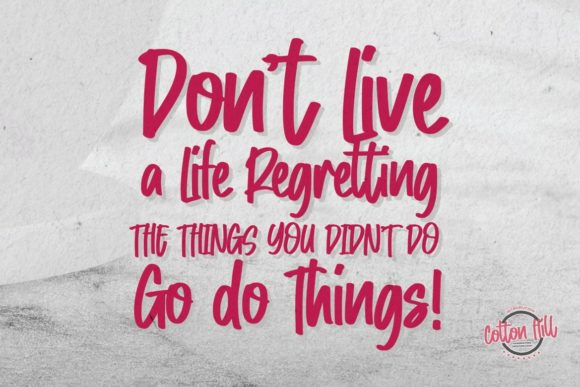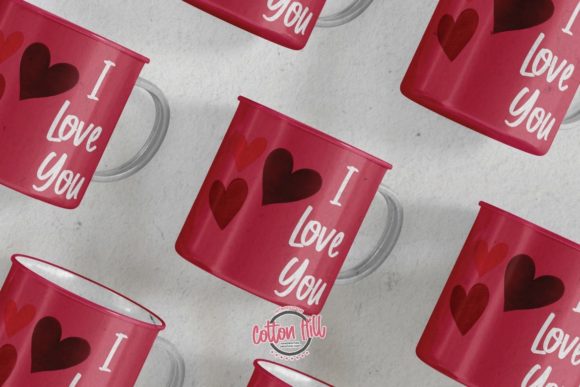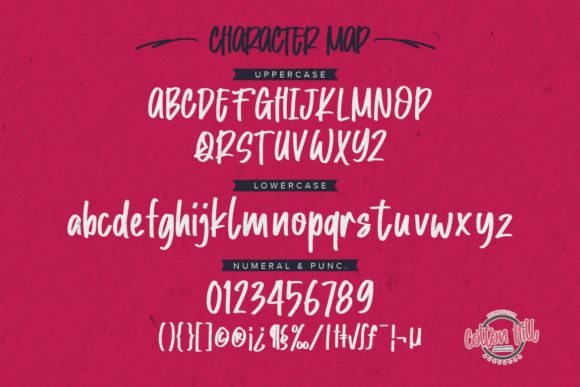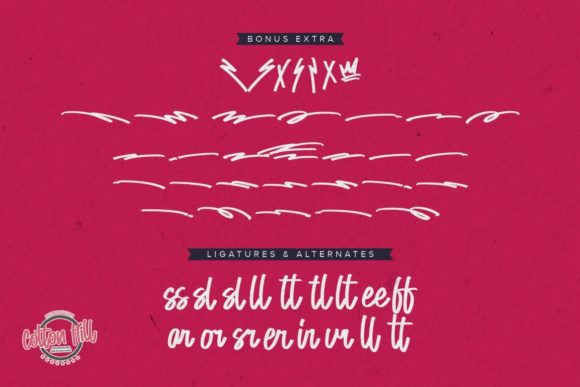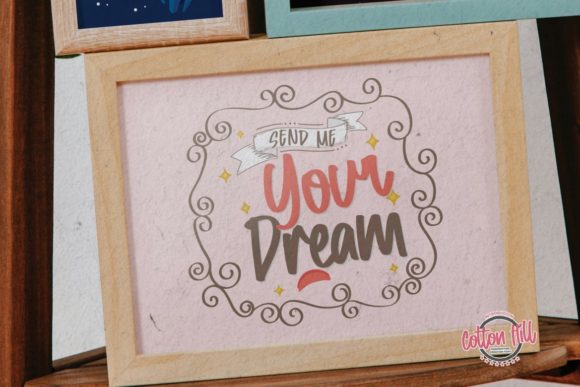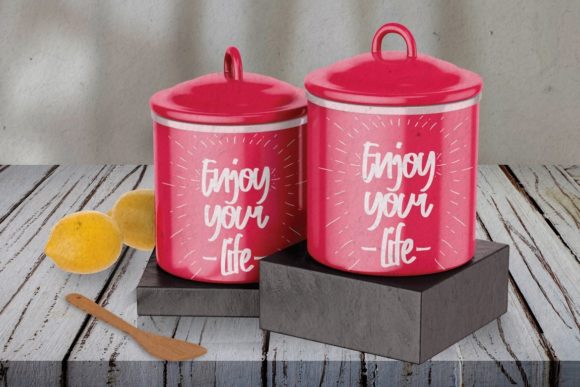
Discover the Artistic Charm of Cotton Hill Font
As I sat at my desk, staring at a blank page, I felt the familiar itch to create something beautiful. I reached for my favorite font, and with a few strokes of my keyboard, the words began to flow. The result was nothing short of magic – a handwritten masterpiece that captured the essence of my thoughts. But what makes a font truly special? For designers, it’s all about the right tool to bring their vision to life. That’s where Cotton Hill Font comes in – a stunning, paint-brushed handwritten font that’s sure to leave a lasting impression.
Cotton Hill Font is more than just a font – it’s an experience. With its unique feel and stunning impact, it’s the perfect addition to any design project. And with PUA encoding, you can access all of the glyphs and swashes with ease, taking your designs to the next level. Whether you’re a seasoned pro or just starting out, Cotton Hill Font is an invaluable tool that will help you create something truly special.
- Font Family: A unique, hand-drawn font with a casual and friendly feel.
- Size: The font comes in 6 weights, ranging from Light to Black, allowing for flexibility in design applications.
- Unique Characteristics: Distinctive hand-drawn feel, with subtle imperfections and variations in letterforms, adding to the font’s charm and personality.
Cotton Hill Font Review
Overall, I think the Cotton Hill Font is a solid choice for designers who need a friendly, approachable typeface. Here are some of its strengths:
- ✨ It’s highly legible, making it perfect for body text and longer passages of content.
- ✨ The font has a great balance between modern and classic elements, giving it a timeless feel.
- ✨ It’s suitable for a wide range of projects, from editorial and publishing to branding and advertising.
- ⚠️ The font may not be the best choice for headlines or titles, as it’s not bold or dramatic enough to make a strong impression.
- ⚠️ It may not be suitable for very small or very large text sizes, as it can become blurry or difficult to read.
Overall, I think the Cotton Hill Font is a great addition to any designer’s toolkit. It’s versatile, easy to use, and highly effective for a wide range of projects. Just be aware of its limitations, and use it judiciously to get the best results.
For the best results, use Cotton Hill Font in combination with other elegant and vintage fonts to create a unique design.
Use Cotton Hill Font to add a touch of vintage charm to your designs.
Use Cotton Hill Font to add a touch of elegance to your presentations and documents.
Cotton Hill Font is perfect for:
- Vintage-inspired designs and posters
- Book covers and publishing materials
- Branding and marketing materials
Remember to experiment with different font combinations and sizes to get the most out of Cotton Hill Font.